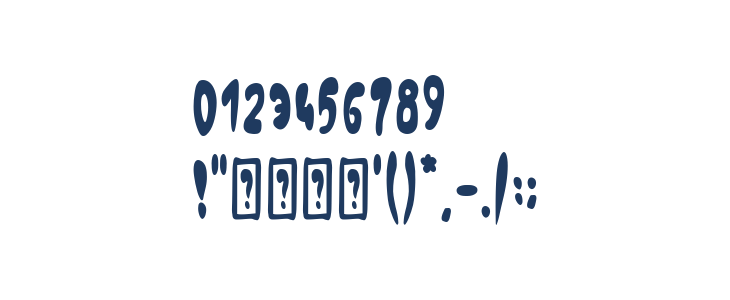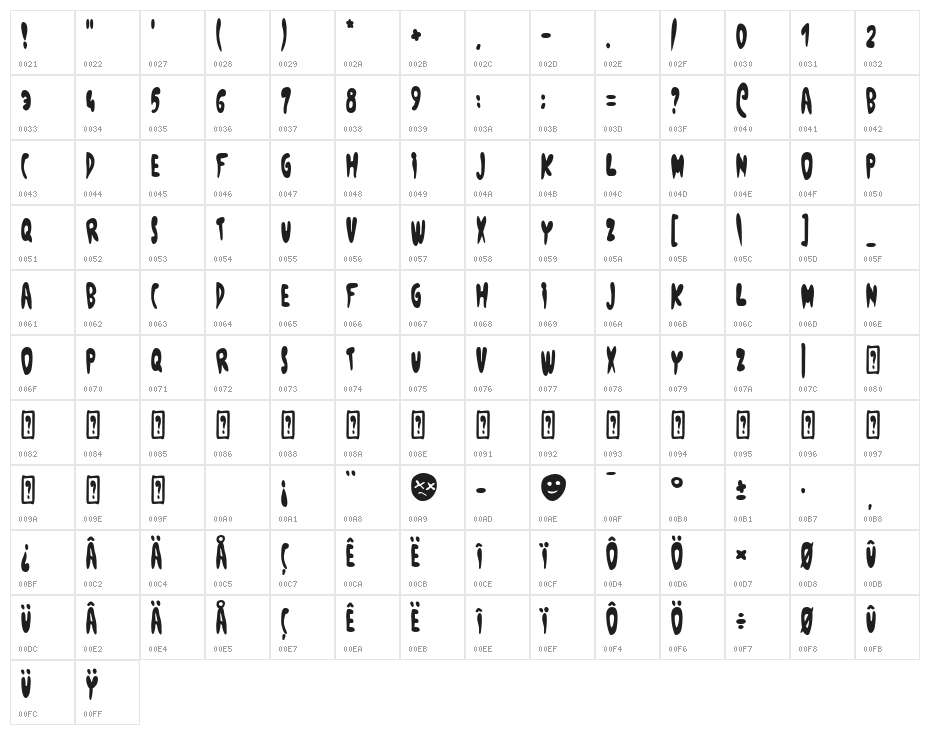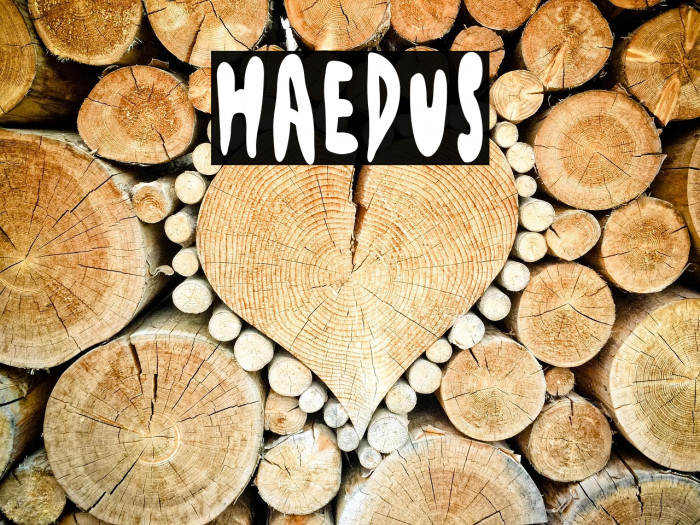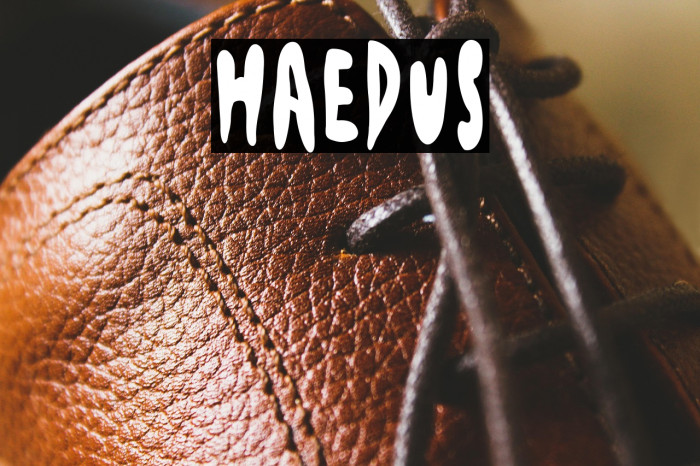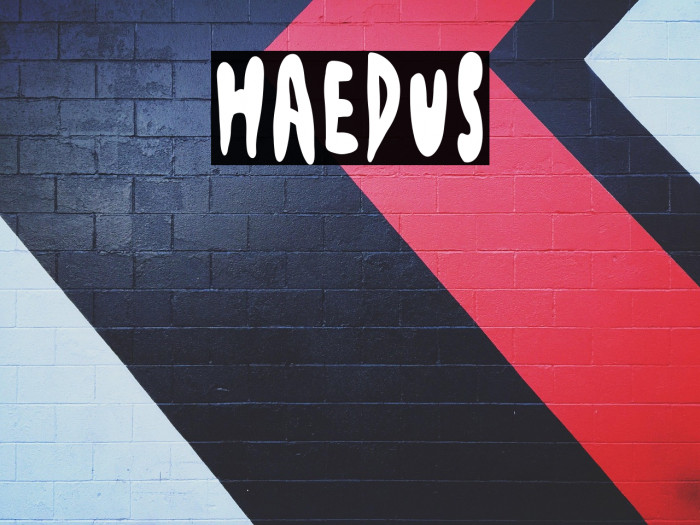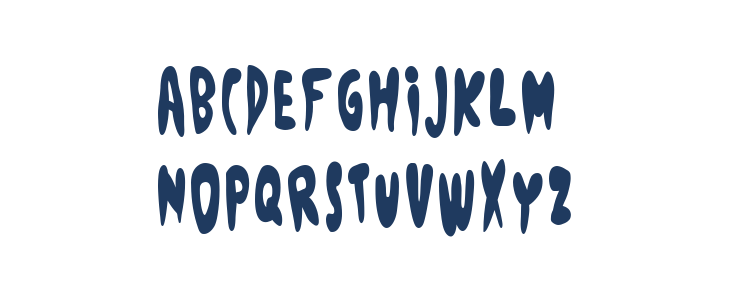
Haedus Font
Haedus Description
This font features a playful and bold design with a hand-drawn appearance. The characters are rounded and slightly irregular, giving them a whimsical and organic feel. The uppercase and lowercase letters maintain a consistent style, with thick strokes and smooth curves. The numbers and special characters follow the same aesthetic, ensuring a cohesive look across all elements. This font's unique style makes it stand out, perfect for projects that require a fun and informal touch.
| Overall Style | Playful, Whimsical |
| Proposed Projects | Ideal for children's books, playful branding, party invitations, and creative posters. |